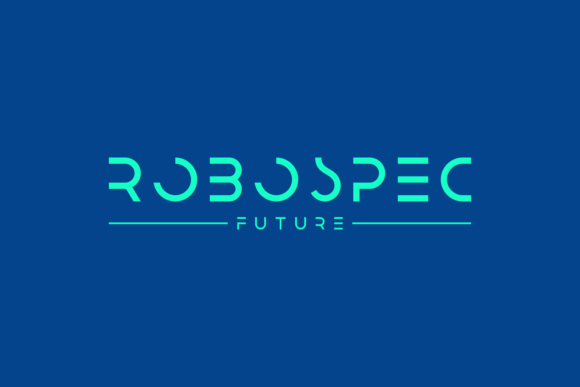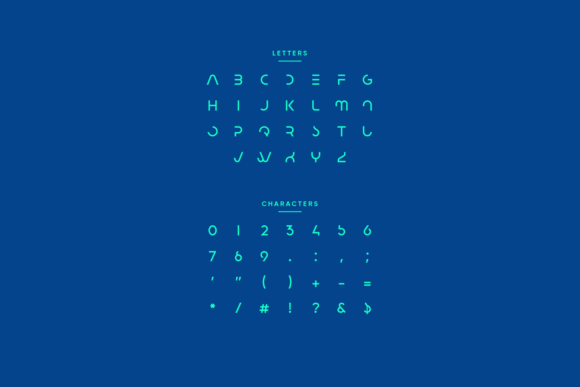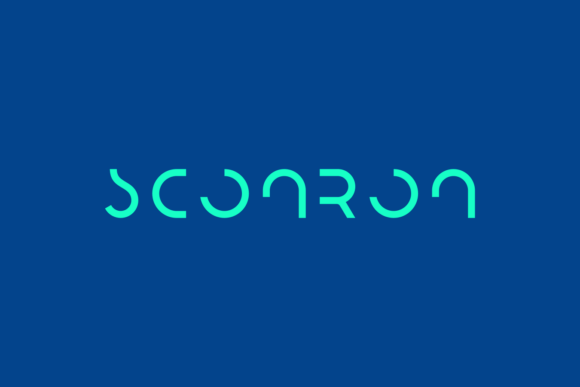
Drospoc Font: The Ultimate Choice for Modern Designs
In the world of typography, fonts play a crucial role in conveying the tone and aesthetic of a design. With the ever-evolving digital landscape, designers are constantly on the lookout for fonts that can keep up with the demands of modern technology. This is where Drospoc Font comes in – a futuristic font designed specifically for the modern age.
What is Drospoc Font?
Drospoc Font is a cutting-edge typeface that embodies the spirit of innovation and technology. Its design is inspired by the latest trends in gadgetry, the metaverse, and sci-fi. The font’s sleek and futuristic look makes it perfect for creating digital interfaces, video game titles, and other digital content that requires a sense of modernity.
Key Features of Drospoc Font
- Modern and Futuristic Design: Drospoc Font boasts a unique and futuristic design that is sure to grab attention. Its sleek lines and curves give it a cutting-edge look that is perfect for modern designs.
- Highly Legible: Despite its futuristic design, Drospoc Font is highly legible, making it perfect for use in digital interfaces, video game titles, and other applications where readability is crucial.
- Versatile: Drospoc Font is a versatile typeface that can be used in a wide range of design projects, from sci-fi and space-themed designs to gaming and technology-related projects.
Use Cases for Drospoc Font
Drospoc Font is perfect for any design project that requires a modern and futuristic look. Here are some use cases where Drospoc Font shines:
- Digital Interfaces: Use Drospoc Font to create sleek and modern digital interfaces that convey a sense of cutting-edge technology.
- Video Game Titles: Drospoc Font is perfect for creating video game titles that require a futuristic and attention-grabbing look.
- Sci-Fi and Space Designs: Drospoc Font’s futuristic design makes it perfect for sci-fi and space-themed designs, such as movie posters, book covers, and album art.
- Gaming and Technology-related Projects: Use Drospoc Font to add a touch of modernity to your gaming and technology-related projects, such as logos, branding materials, and website designs.
Why Choose Drospoc Font?
With so many fonts available, why choose Drospoc Font? Here are some reasons why Drospoc Font stands out from the rest:
- Unique Design: Drospoc Font has a unique and futuristic design that sets it apart from other fonts.
- High-Quality: Drospoc Font is a high-quality typeface that is designed to meet the demands of modern design.
In conclusion, Drospoc Font is the ultimate choice for designers and crafters looking to create modern and innovative designs. Its futuristic design, high legibility, and versatility make it perfect for a wide range of design projects. Whether you’re working on a digital interface, video game title, or sci-fi design, Drospoc Font is the perfect choice. So why wait? Download Drospoc Font today and take your designs to the next level!